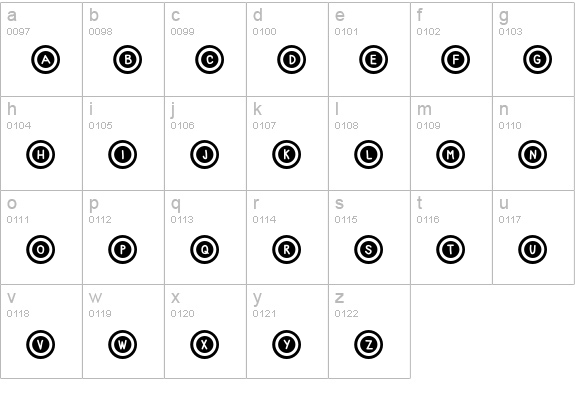
Dialtone Font Details
Introducing Dialtone font, a sleek and modern typeface designed to elevate your projects with a touch of sophistication. This versatile font boasts a clean and minimalist aesthetic, making it perfect for a wide range of design applications. Its unique character shapes and smooth curves give your text a contemporary and professional look. What sets Dialtone font apart is not only its elegant design but also the fact that it is available for free! Yes, you read that right - this high-quality font can be downloaded at no cost from FontsMarket.com. Whether you're working on branding, packaging, web design, or any other project, Dialtone font is sure to make a bold statement and leave a lasting impression. Upgrade your typography game today with Dialtone font and watch your designs come to life!